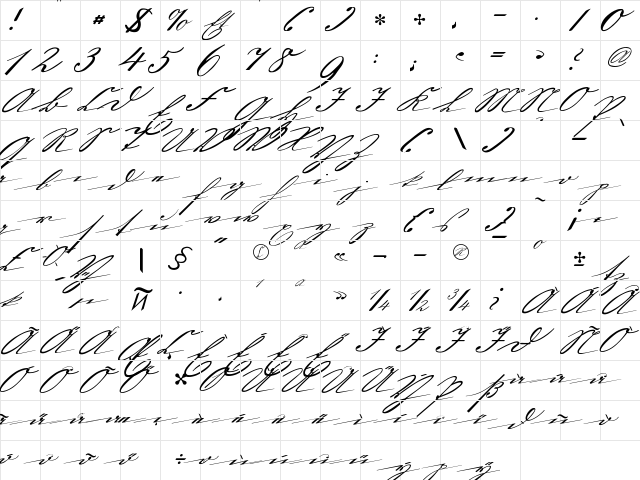
Sin Regular Font Preview
Sin Regular
Sin Regular Font Details
Design Context for S�in Typeface
S�in is a composed and adaptable typeface that performs quietly and consistently across a wide range of design contexts.